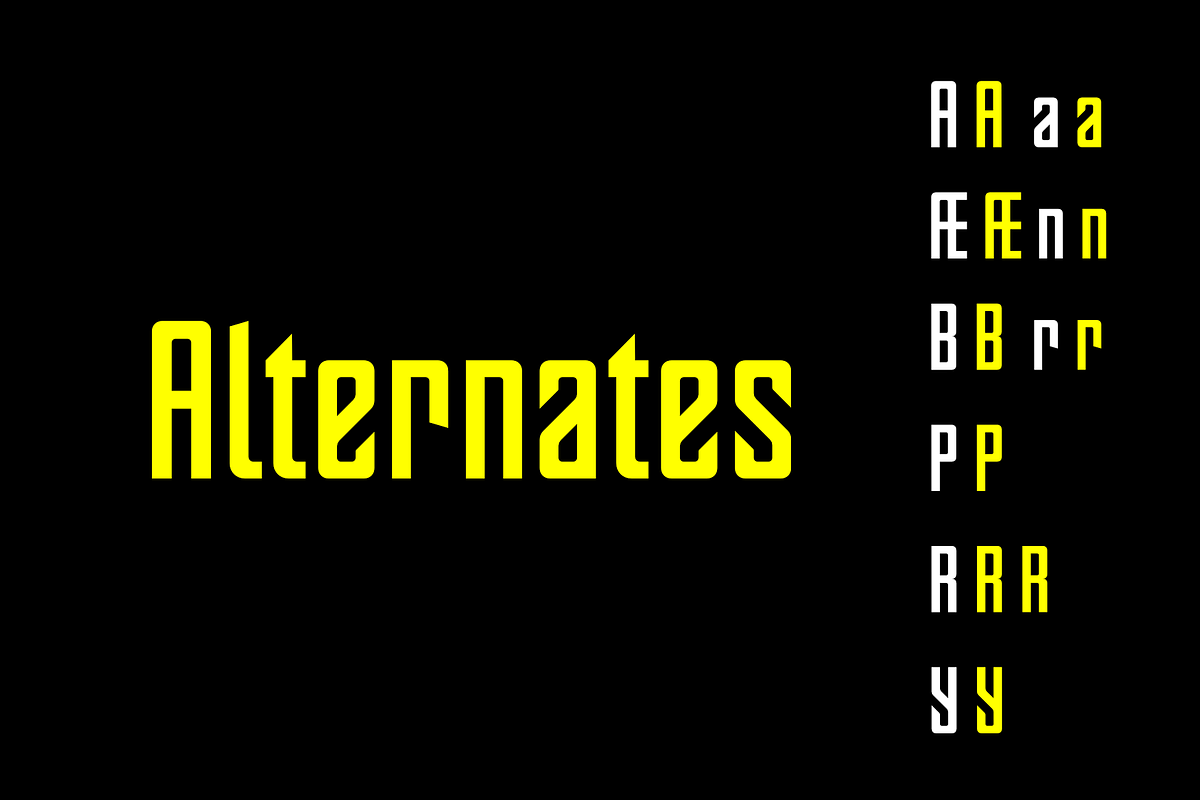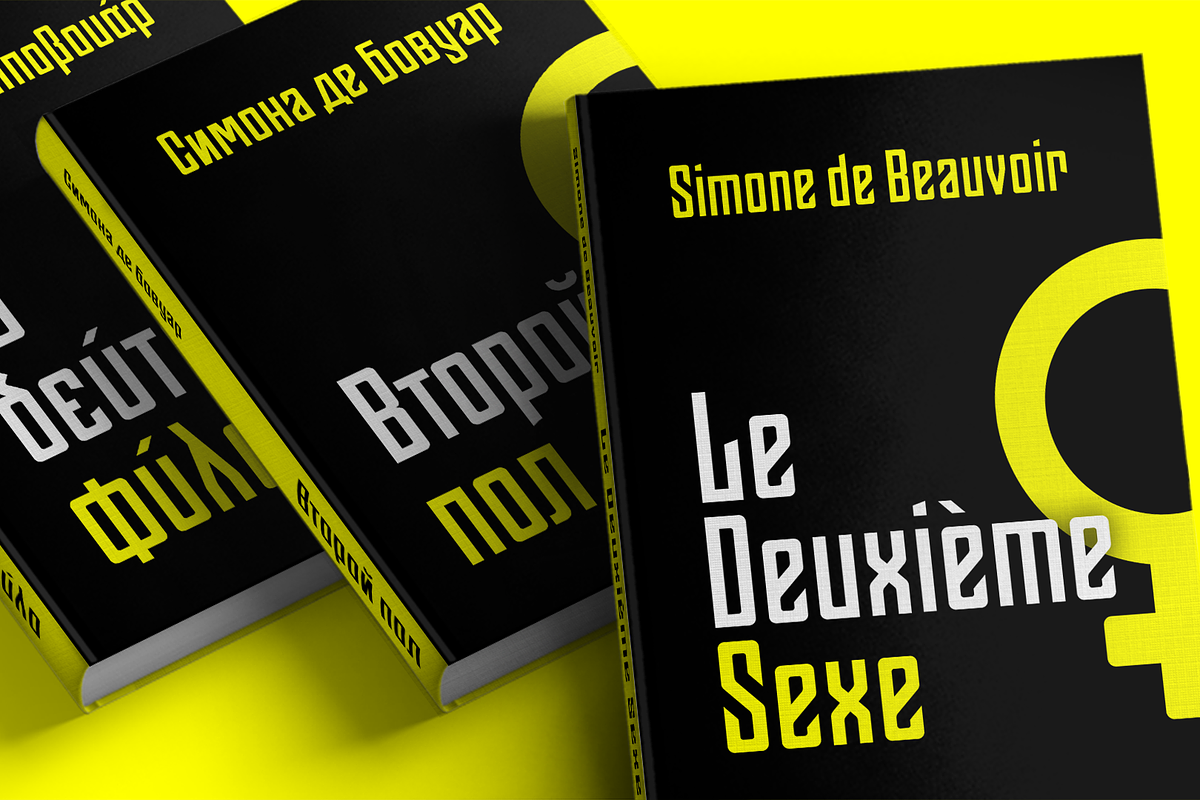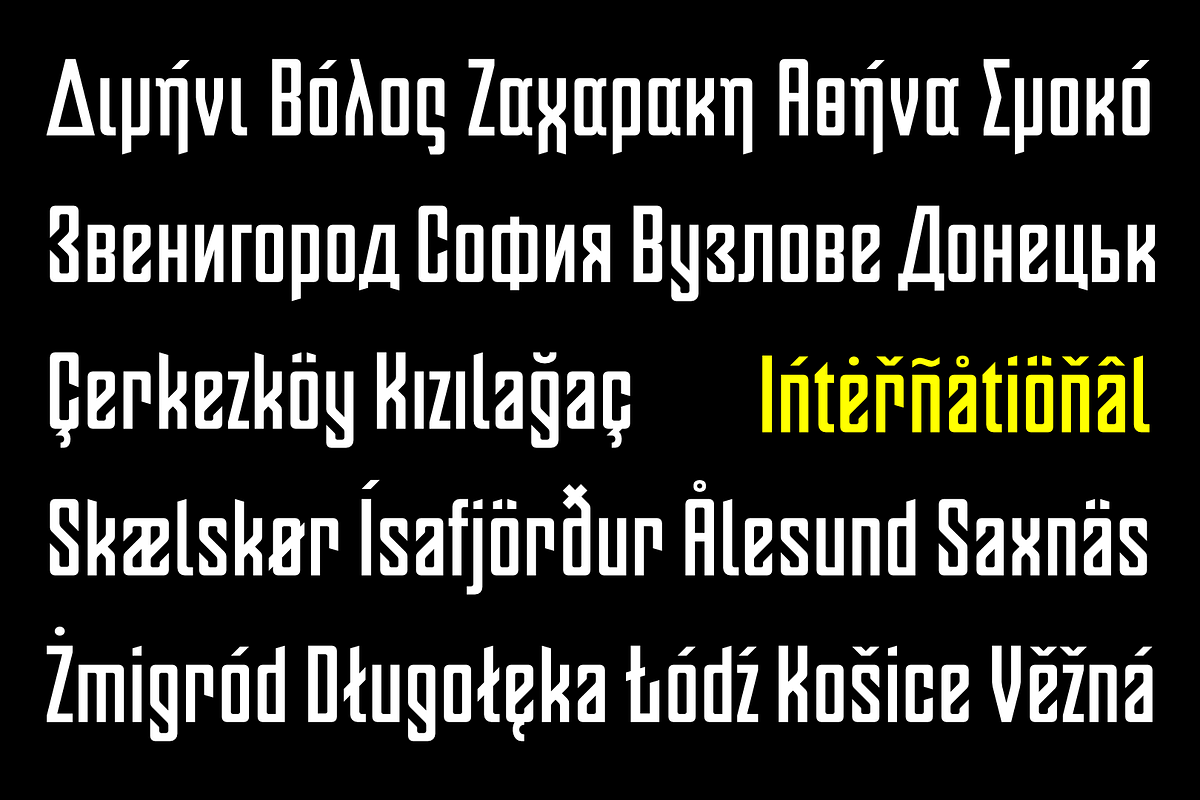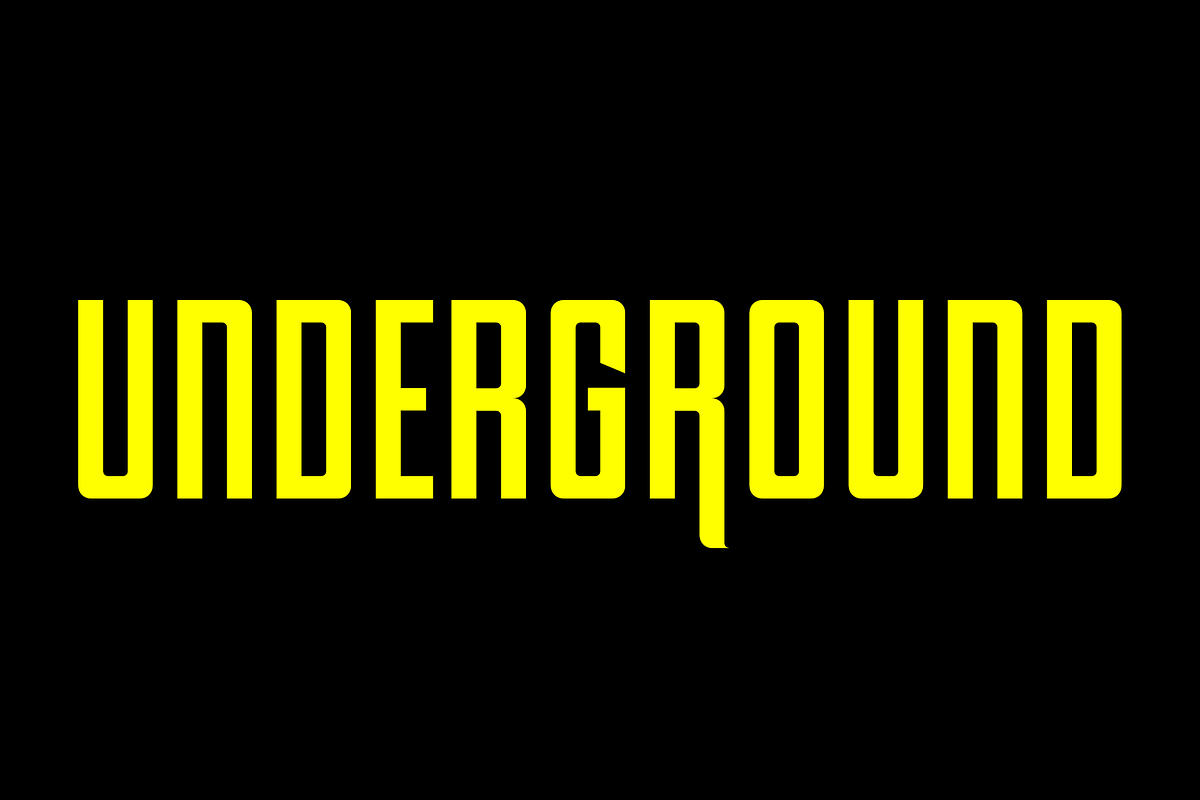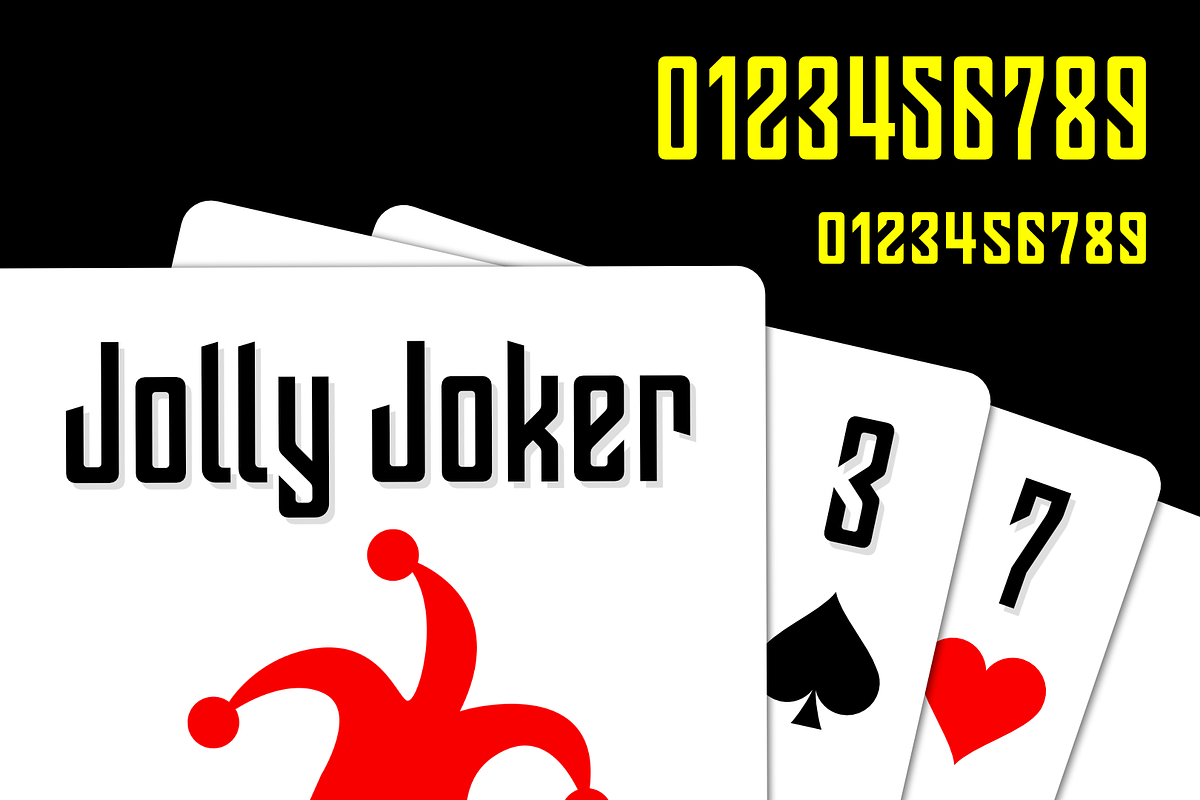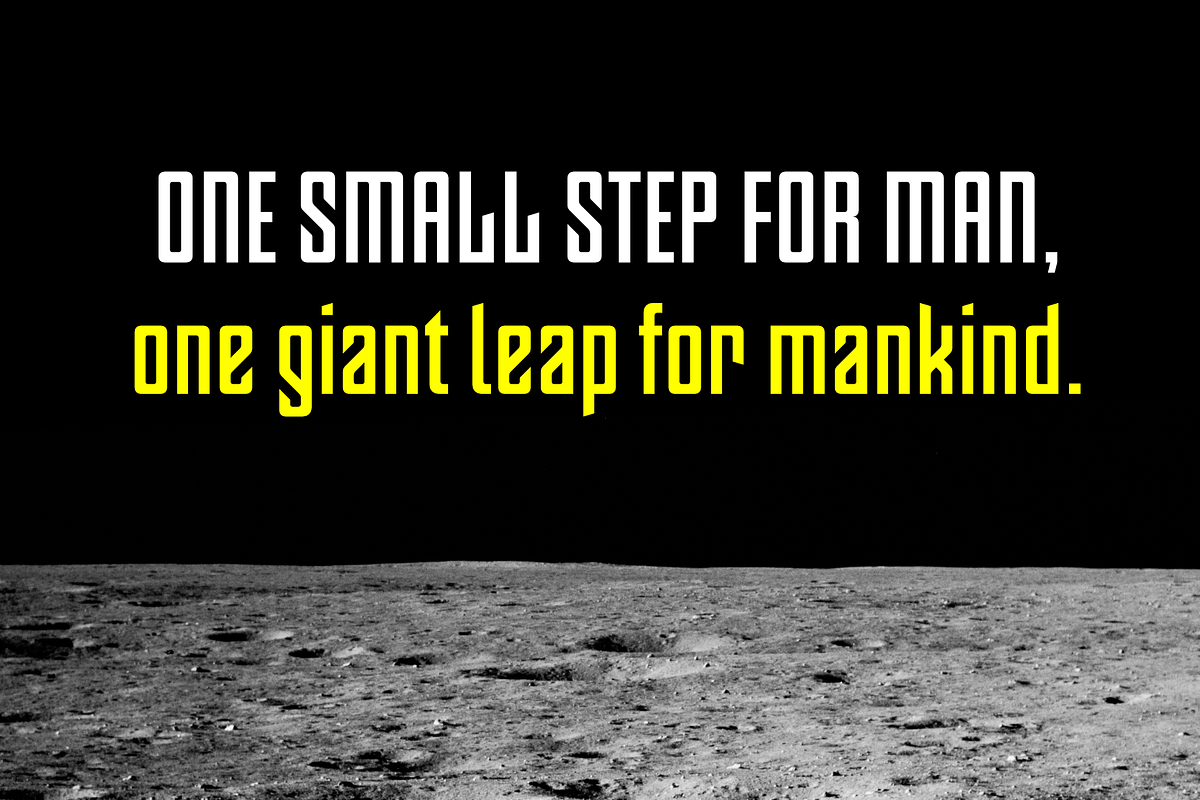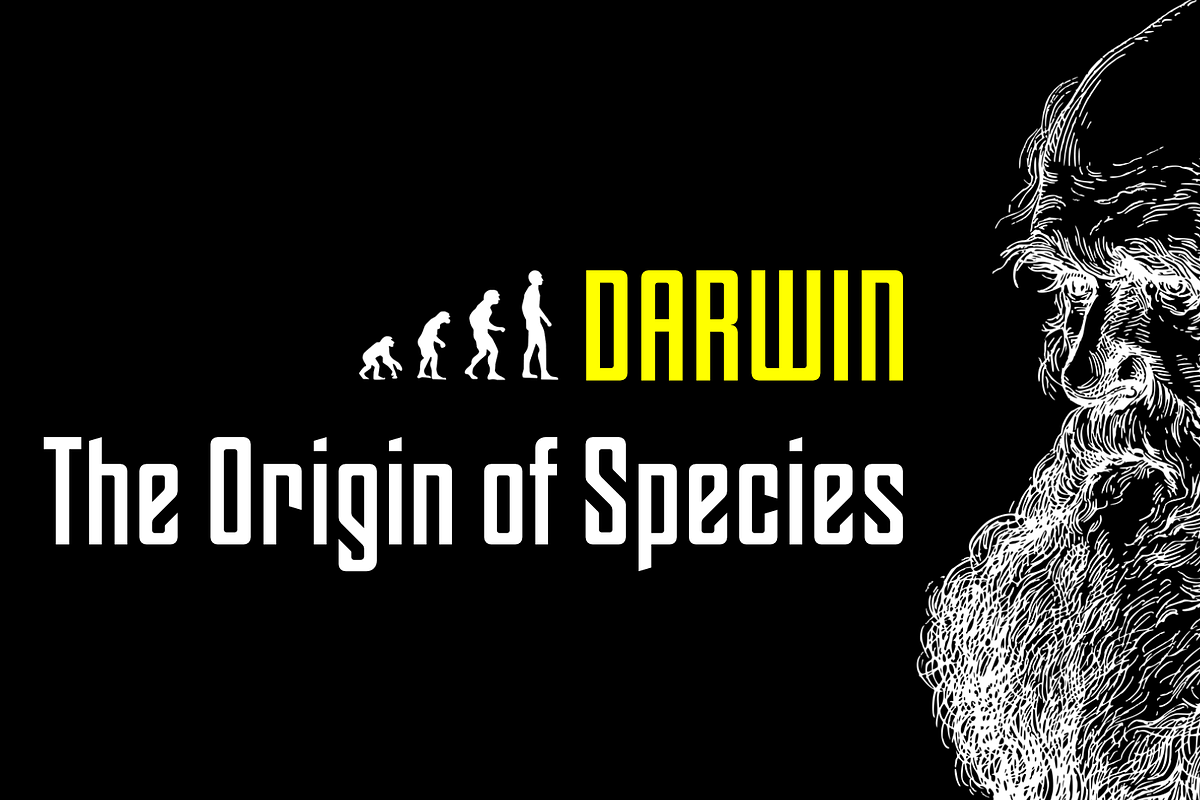
OTC Underground
OTC Underground is a bold and distinctive geometric sans serif font. Its defining characteristic is its compressed letterform structure, achieved through a condensed design and even stroke contrast. The font's origins lie in the late 19th century typography of Gustav F. Schroeder's Othello typeface (1886), while its aesthetic draws inspiration from the lettering on The Velvet Underground & Nico album cover from 1967. This fusion of historical and countercultural influences gives OTC Underground a unique retrofuturistic appeal. It is well-suited for display applications such as headlines, posters, and branding materials where a strong visual impact is desired.